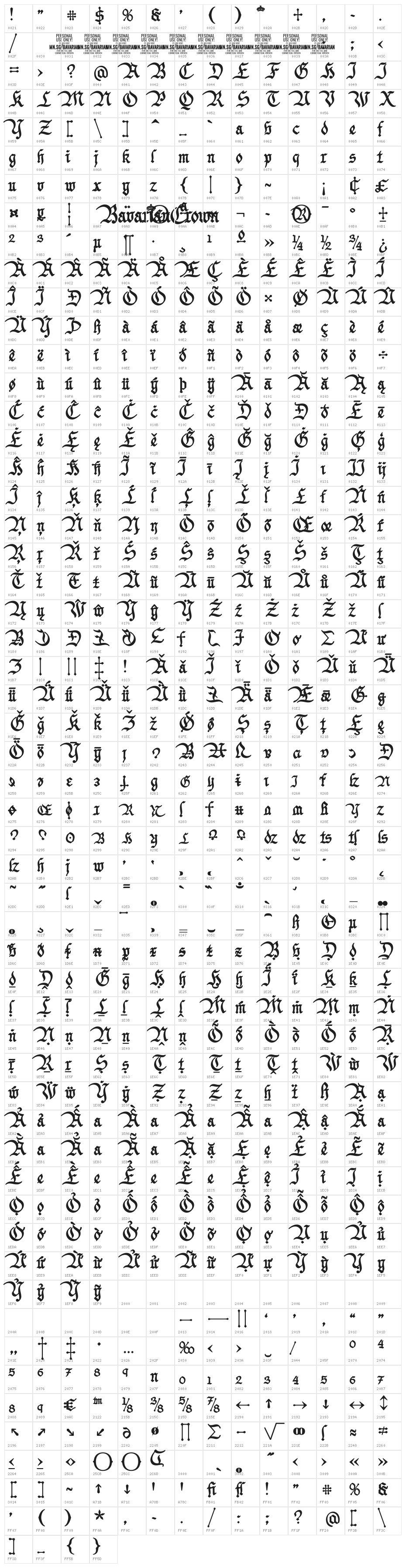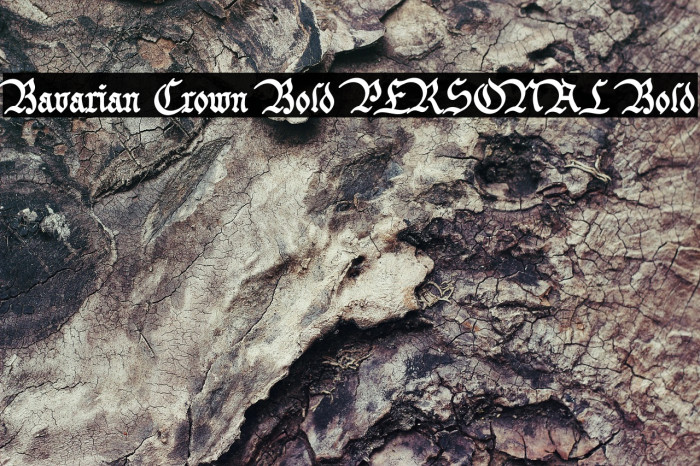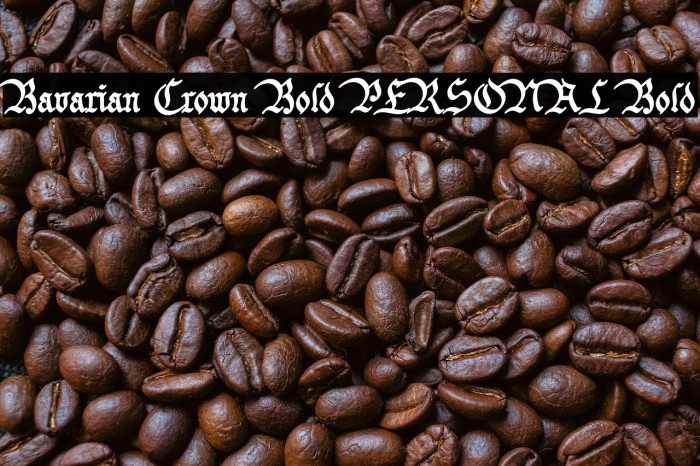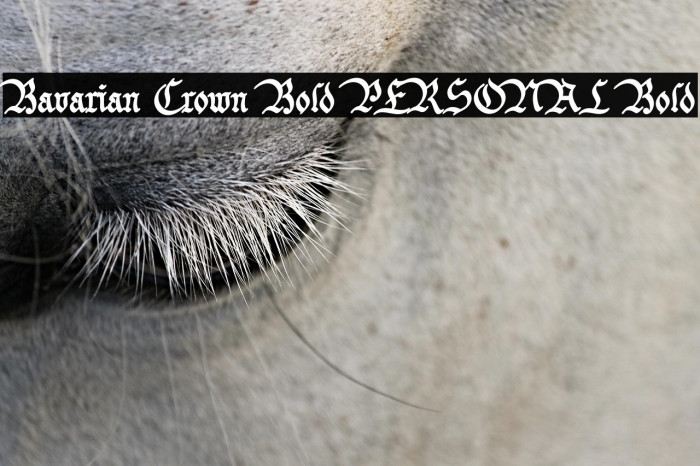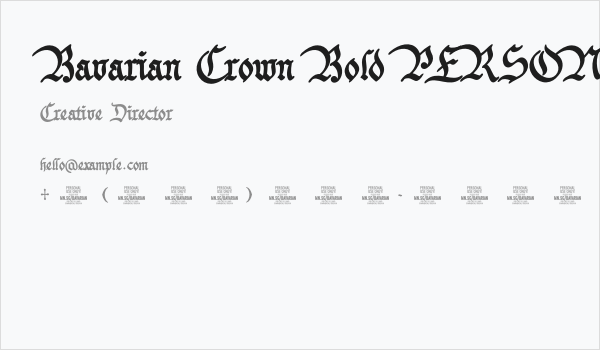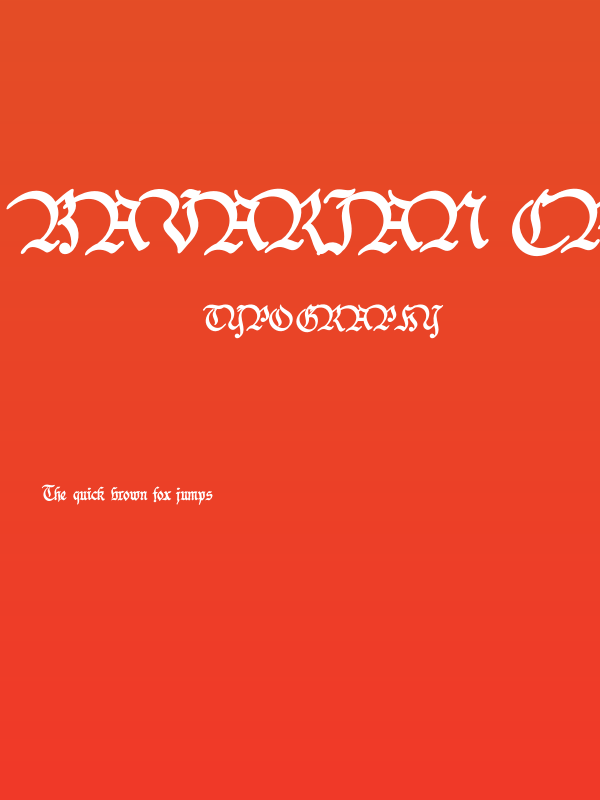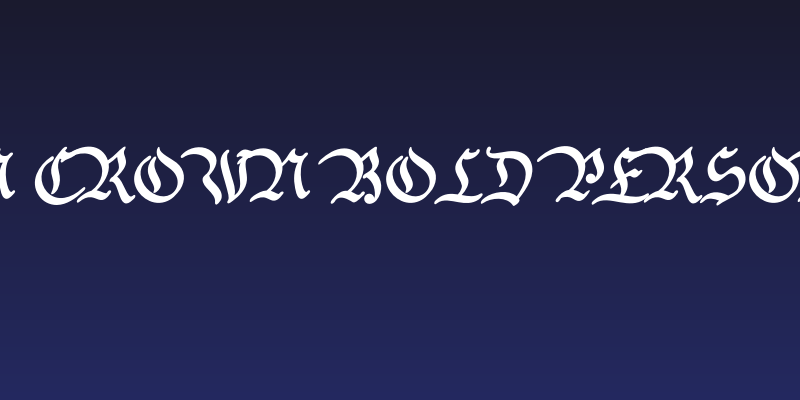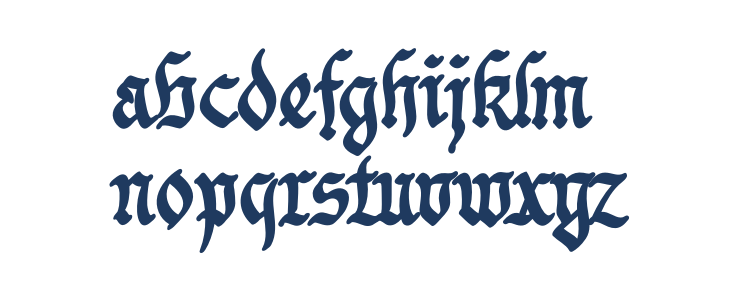
Bavarian Crown Bold PERSONAL Bold Font
Bavarian Crown Bold PERSONAL Bold Description
This font features a bold and intricate design reminiscent of traditional blackletter styles. The characters are ornate, with sharp angles and elaborate flourishes that give it a historic and regal appearance. The uppercase letters are particularly striking, with their dramatic curves and pointed serifs. The lowercase letters maintain the same level of detail, ensuring consistency across the typeface. The numbers and special characters are equally decorative, making them suitable for thematic designs. This font exudes a sense of tradition and authority, making it ideal for projects that require a touch of elegance and historical reference.